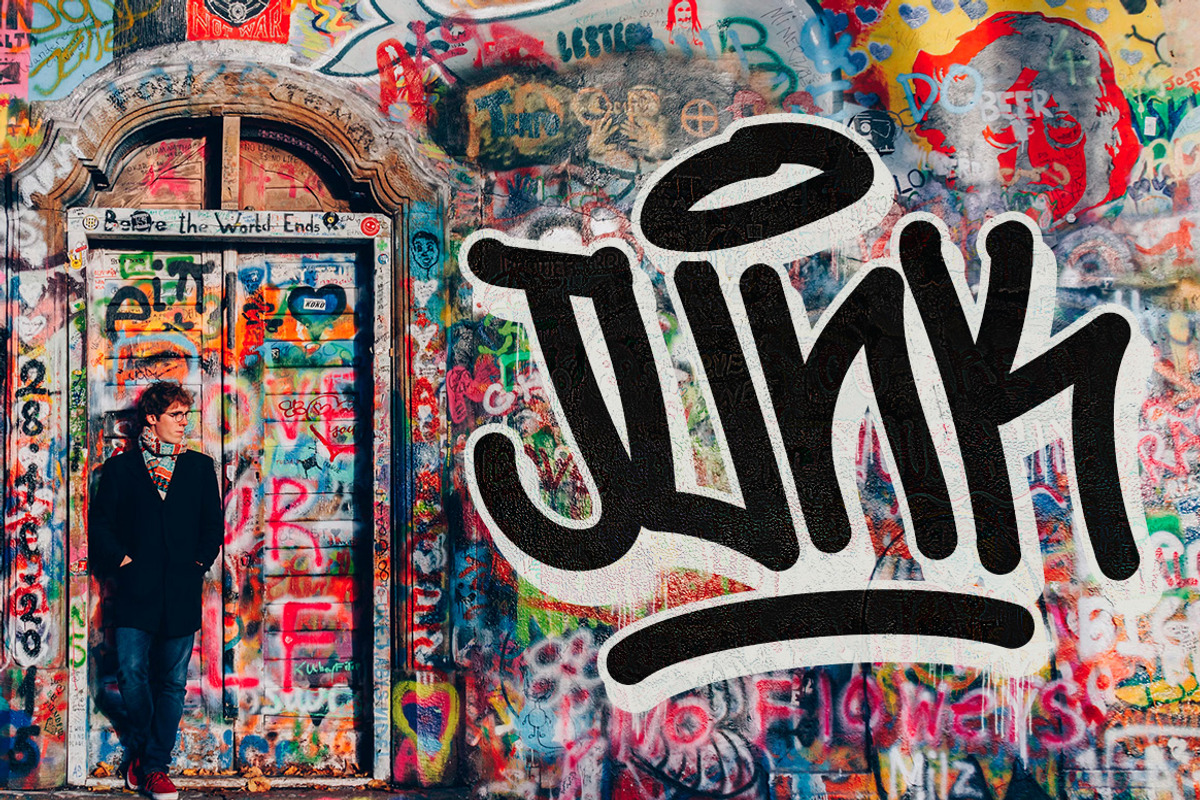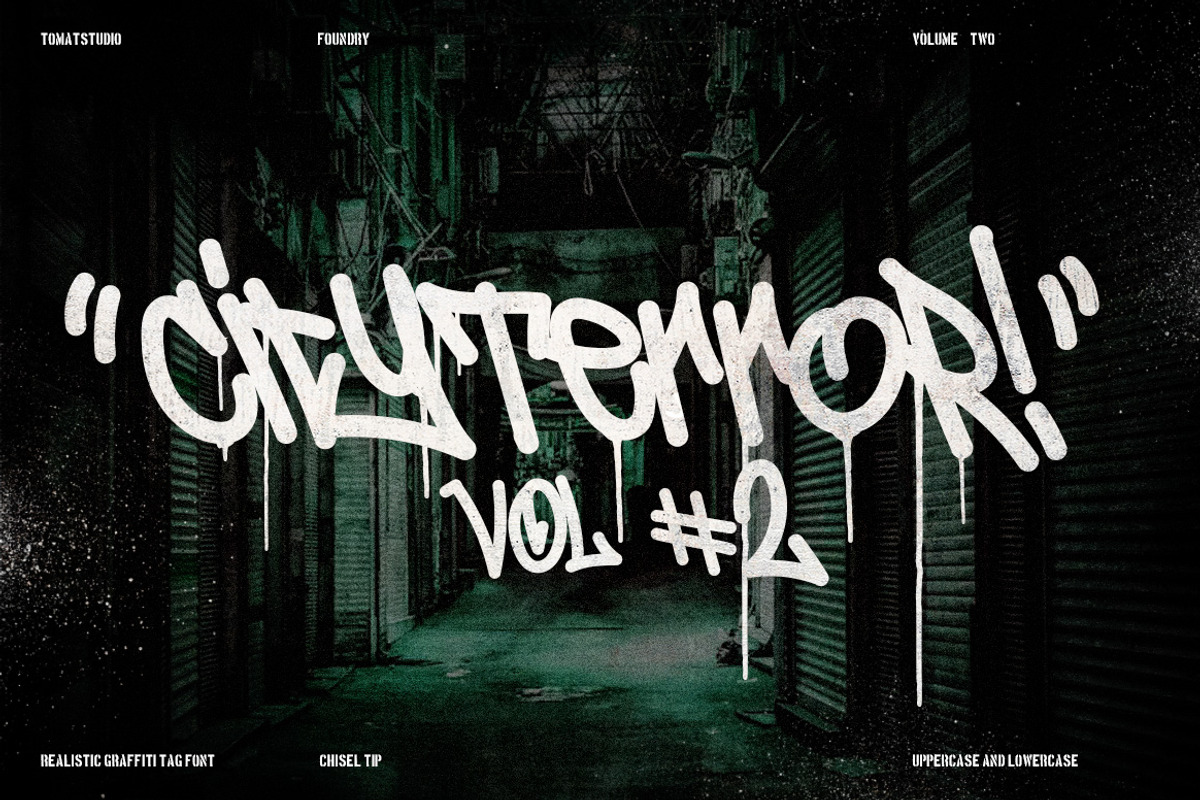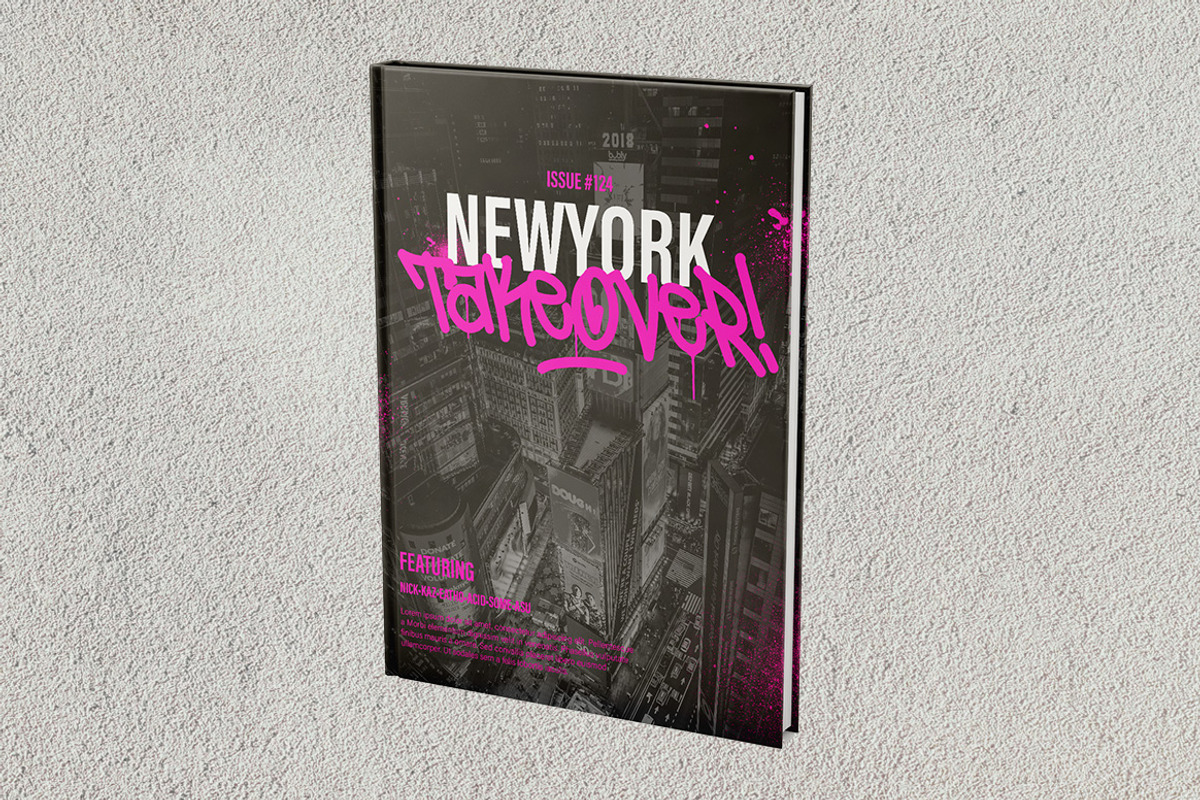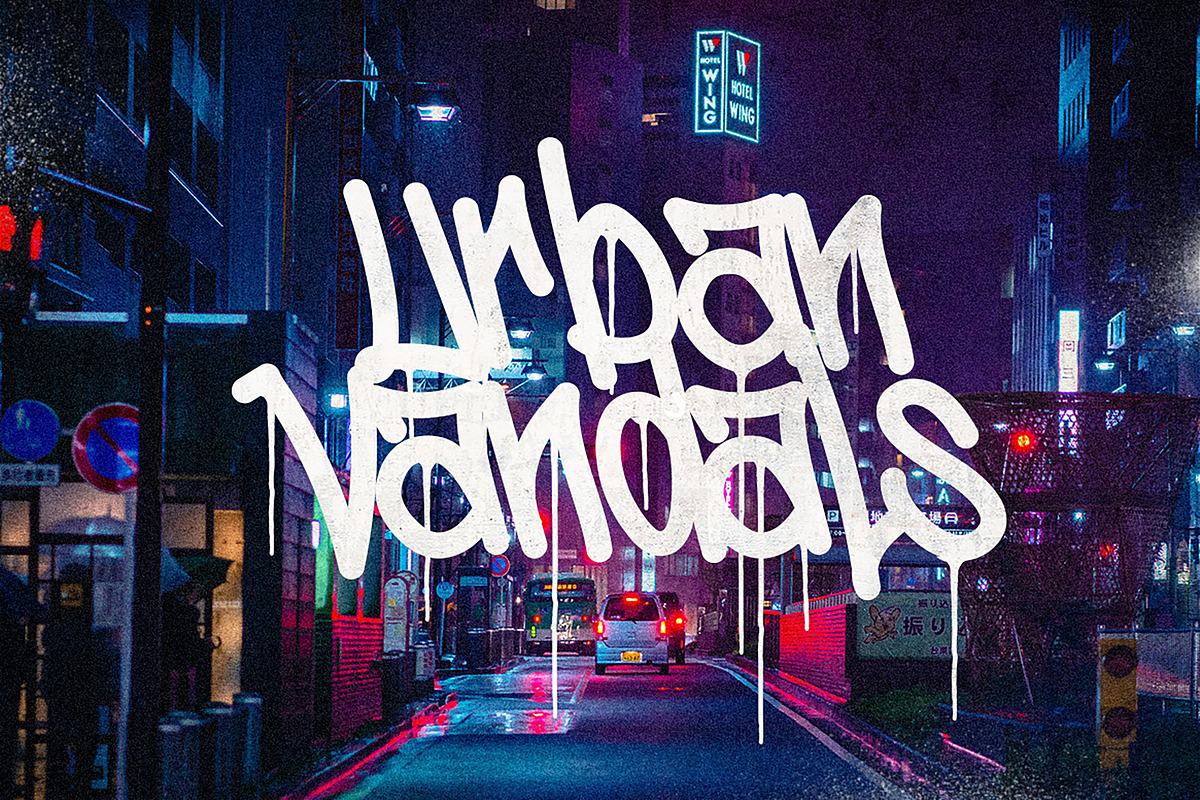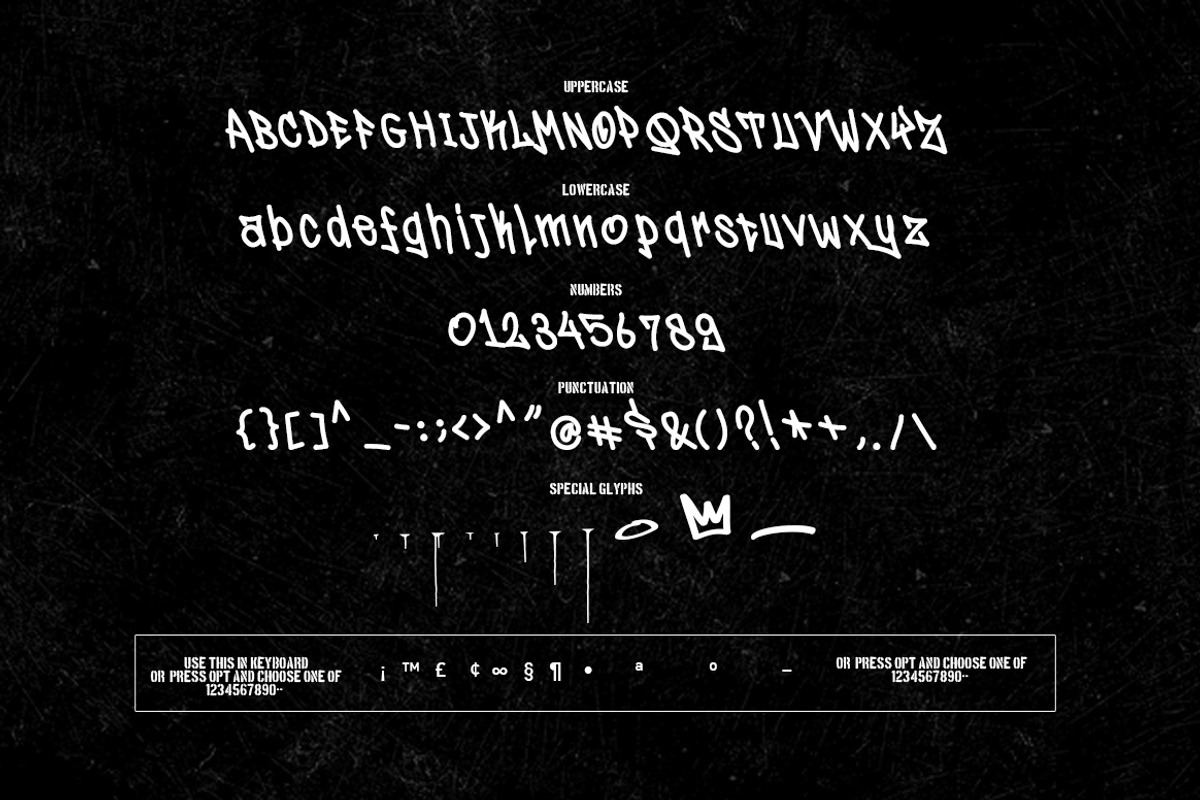
Graffiti Inspired | City Terror Vol2
This is the volume 2 of City Terror Fonts, the difference is this one use chisel rounded tip so it will be good result if you use it for old school style tagging, or old style pieces. But otherwise you can use it in any styles and any need, specially about street art and hip hop.